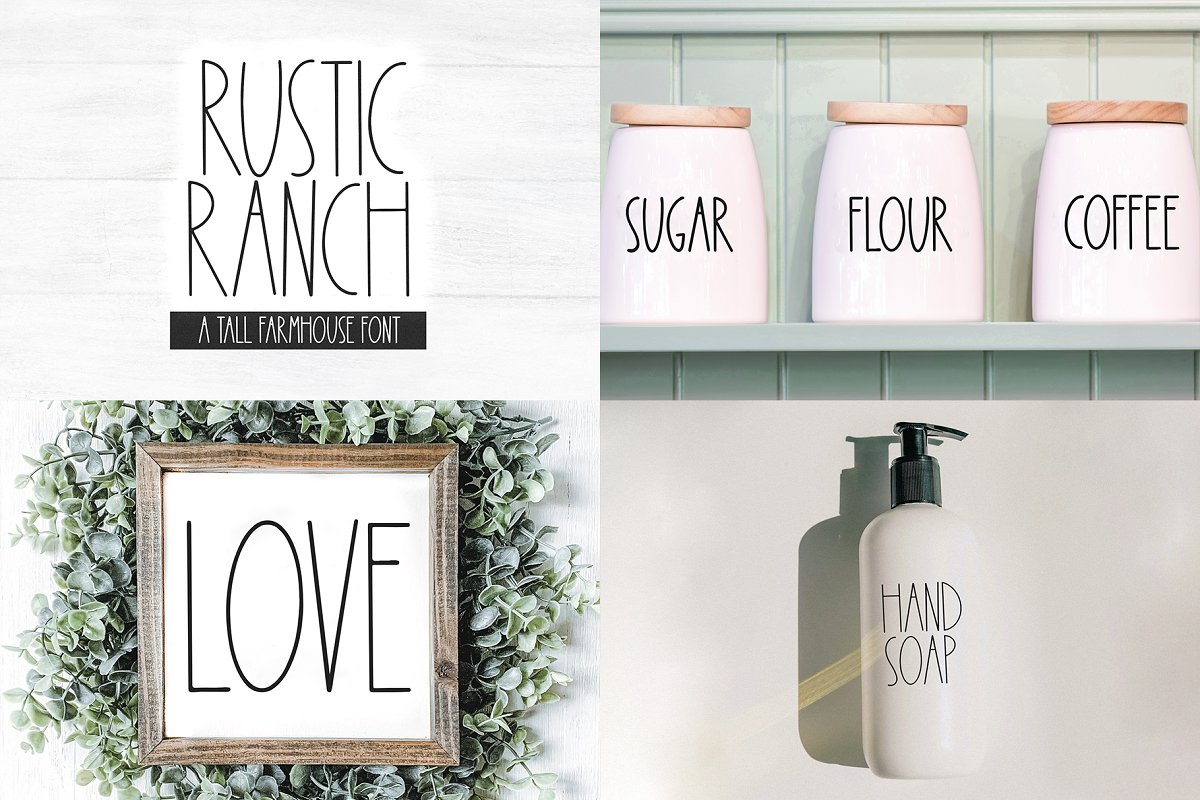
About the Farmhouse Font Bundle | Part 4
HANDWRITTEN FONT BUNDLE – FARMHOUSE STYLE – VOLUME 4LIMITED TIME OFFER – includes 12 fonts!This bundle includes a handpicked selection of fonts, perfect for your farmhouse and country designs! Includes NEW fonts!Fonts IncludedArlingtonRosemaryFarm AcresSweet PumpkinSunset LandWhite OakRustic RanchMaple SpruceSundazeThoughtfulOaklandSagebrushThese fonts are perfect for all of your farmhouse designs, svg files, pantry labels, shirts, stickers, logos, signs and more!Includes OTF/TTF files